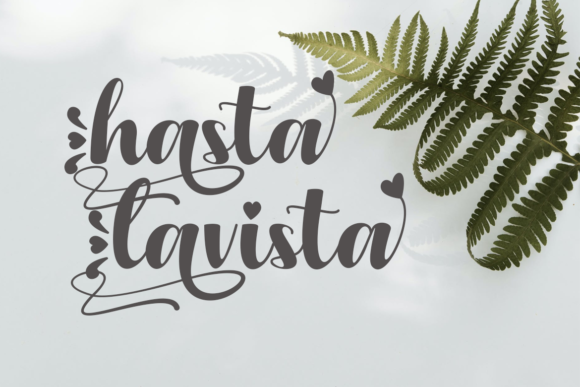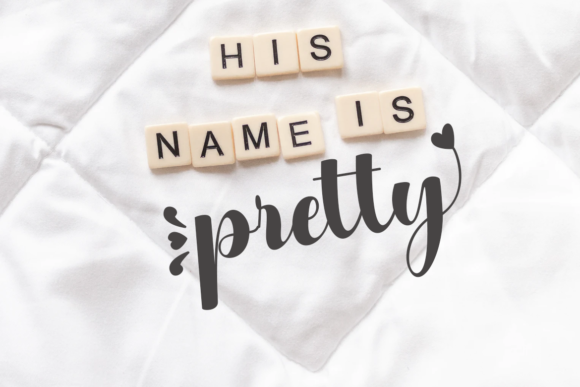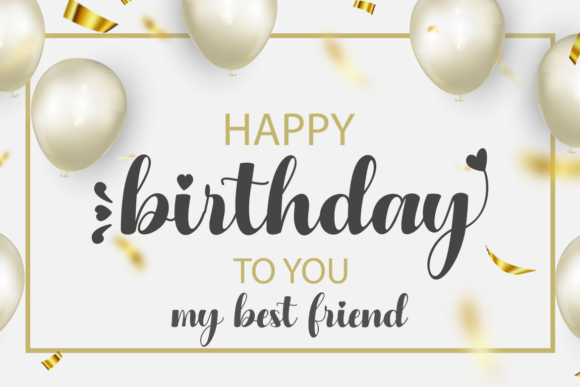
Introduction to Lavida Font
Lavida is a sweet, flowing and bold handwritten font.
It looks stunning on wedding invitations, thank you cards, quotes, greeting cards, logos, business cards and every other design which needs a personalized, romantic touch .
Lavida Font offers exceptional quality and versatility, making it a valuable addition to your design toolkit. Whether you’re creating for personal projects or commercial use, Lavida Font delivers professional results.